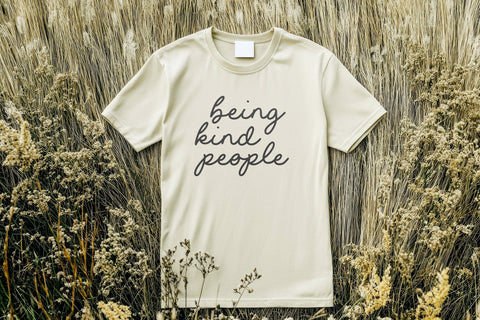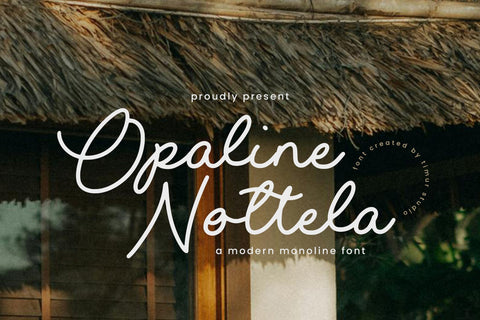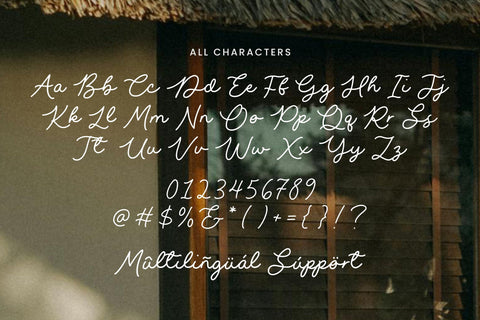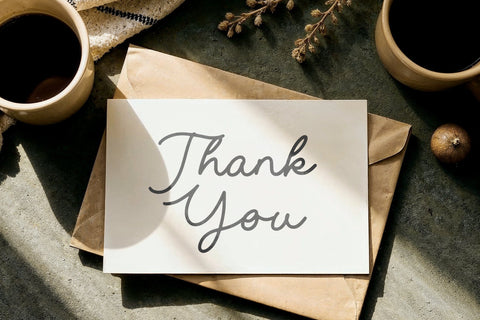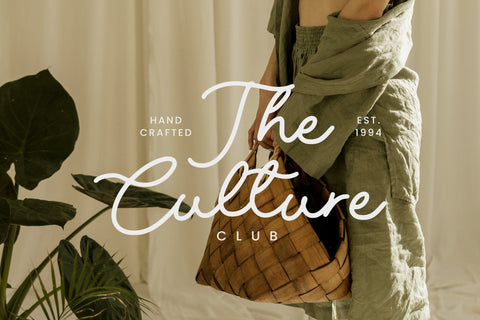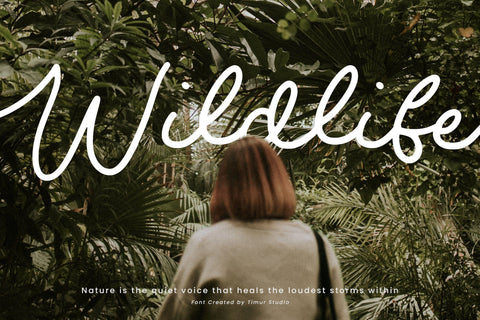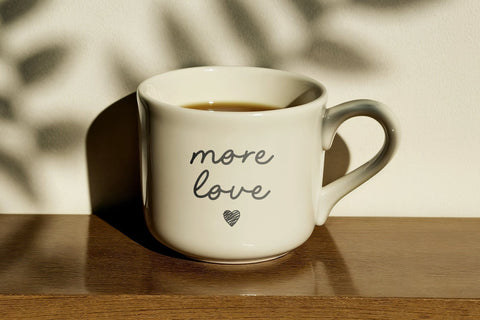
Opaline Nottela - Modern Monoline Font
Opaline Nottela is a Modern Monoline Font
This font is a modern monoline font with smooth, balanced strokes and a refined minimal look. Its clean flow and understated elegance make it perfect for branding, logotypes, and stylish contemporary designs.
Opaline Nottela Font also supports multilingualism